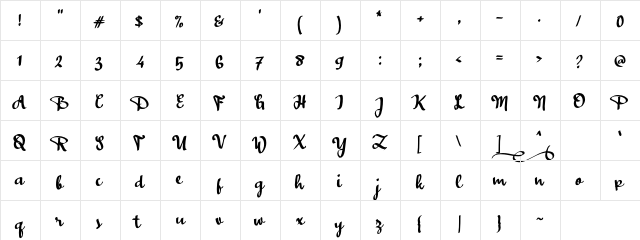
a Asalkan Regular
| Designer | Wahyu Eka Prasetya |
Design Context for a Asalkan Typeface
a Asalkan is a composed and adaptable typeface that performs quietly and consistently across a wide range of design contexts.